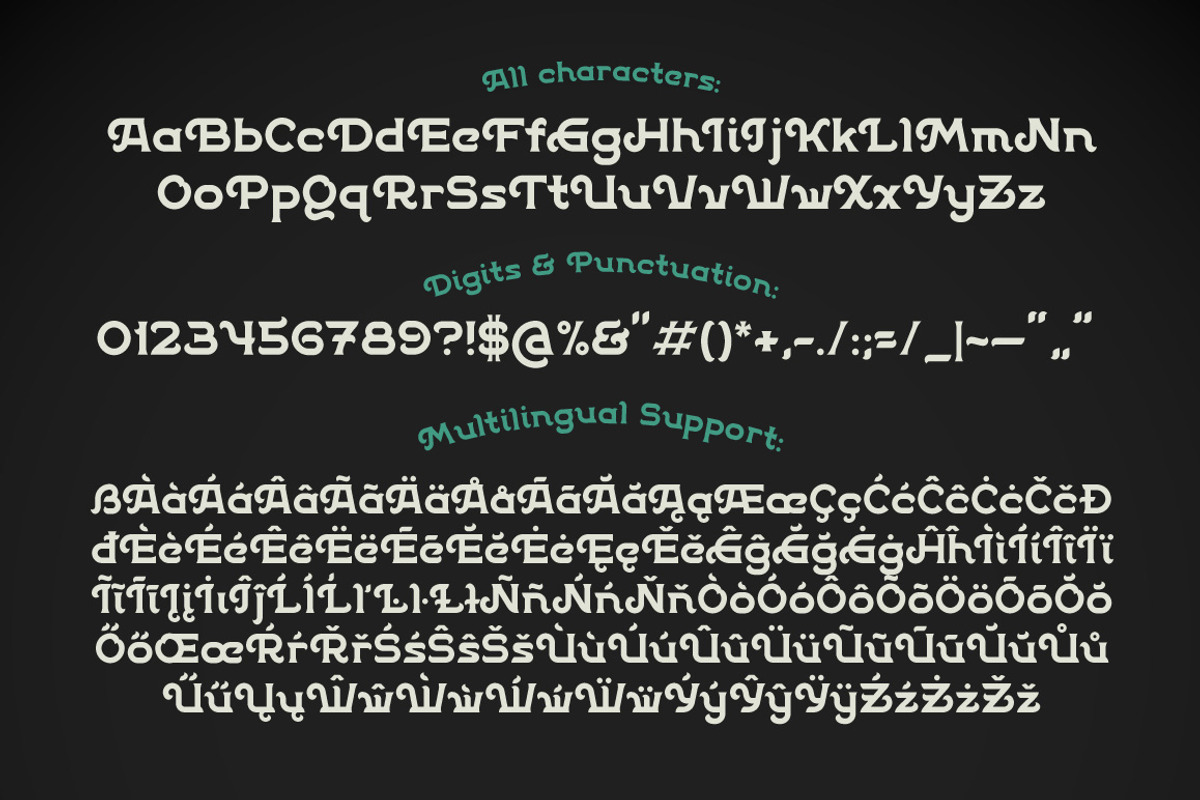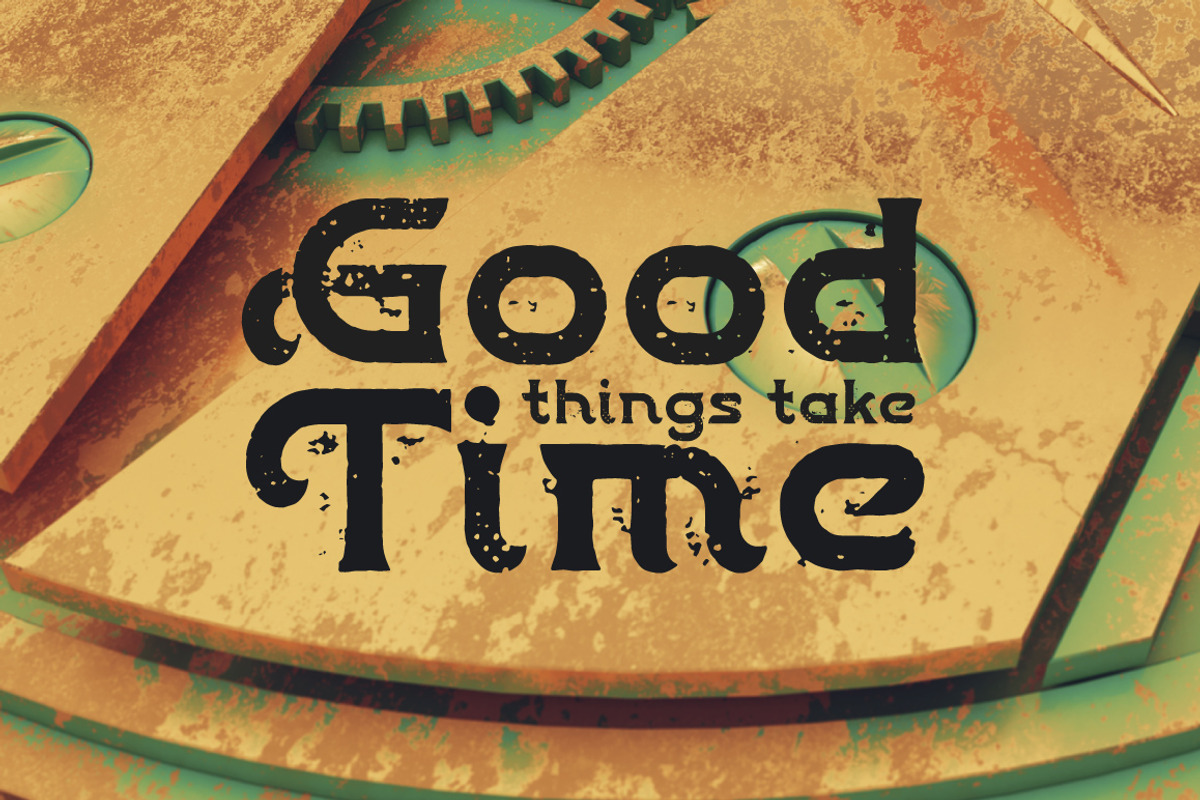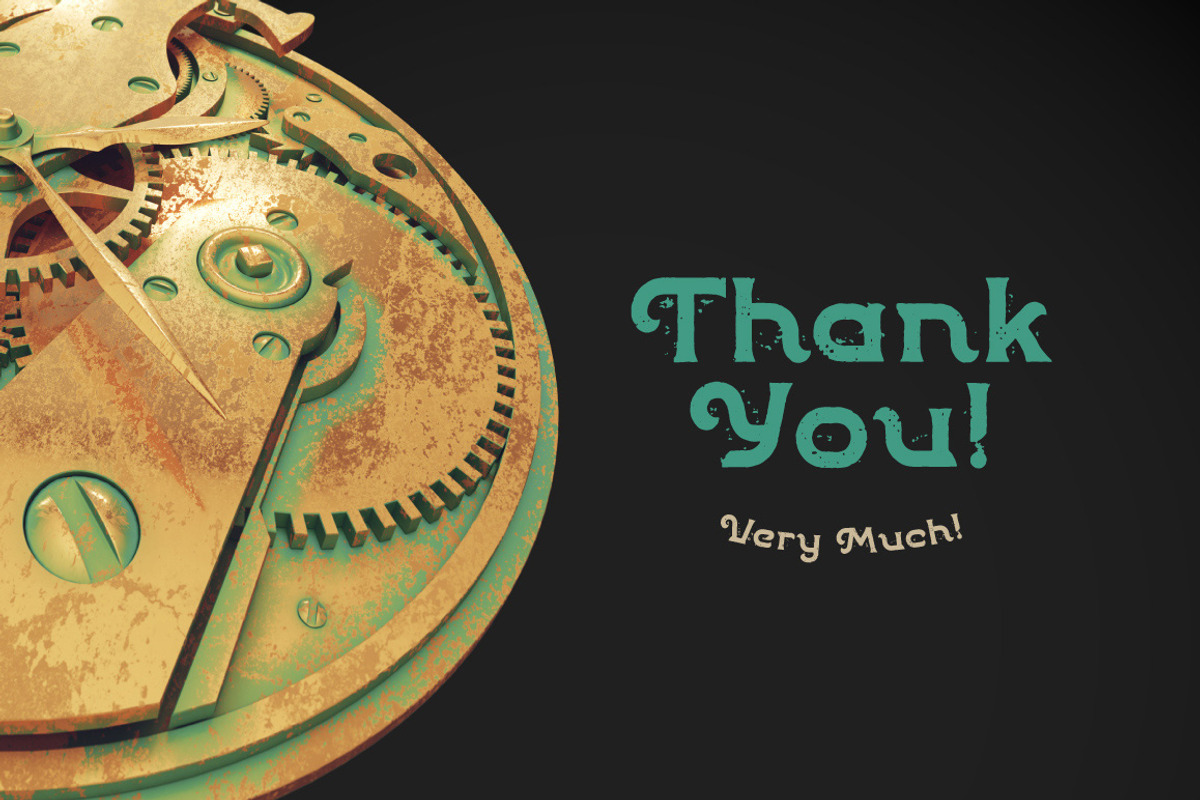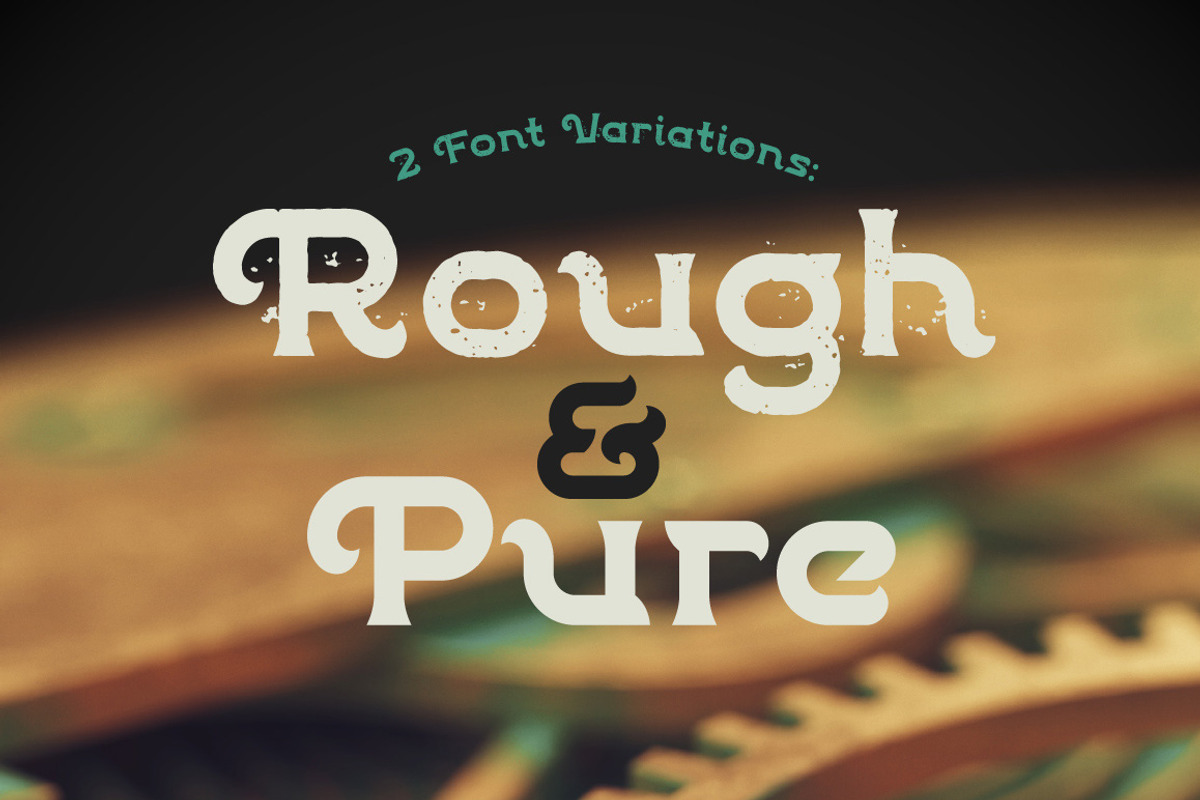
Patina font
Patina font by Gleb Guralnyk is a font selected for branding, posters, packaging, typography.
- Patina Regular
- Patina Rough Regular
Why Patina font is worth a look
Patina font by Gleb Guralnyk fits naturally into Branding, posters, packaging, typography.